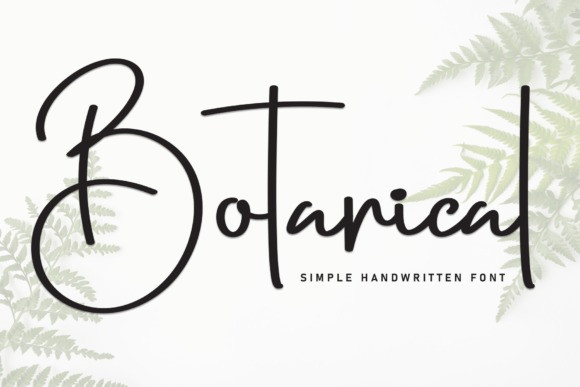
Botanical Script Font
Botanical Script Font is a sweet and friendly handwritten font. Its natural and unique style makes it incredibly fitting to a large pool of designs. The only limit is your imagination!